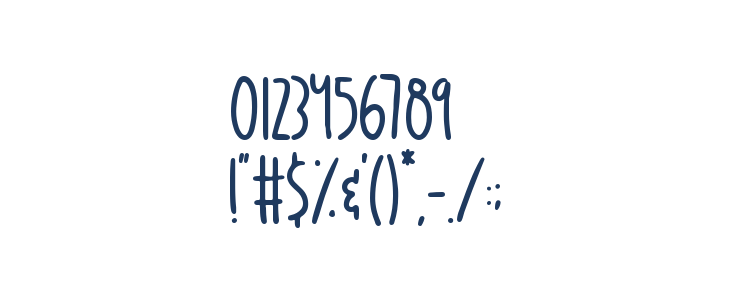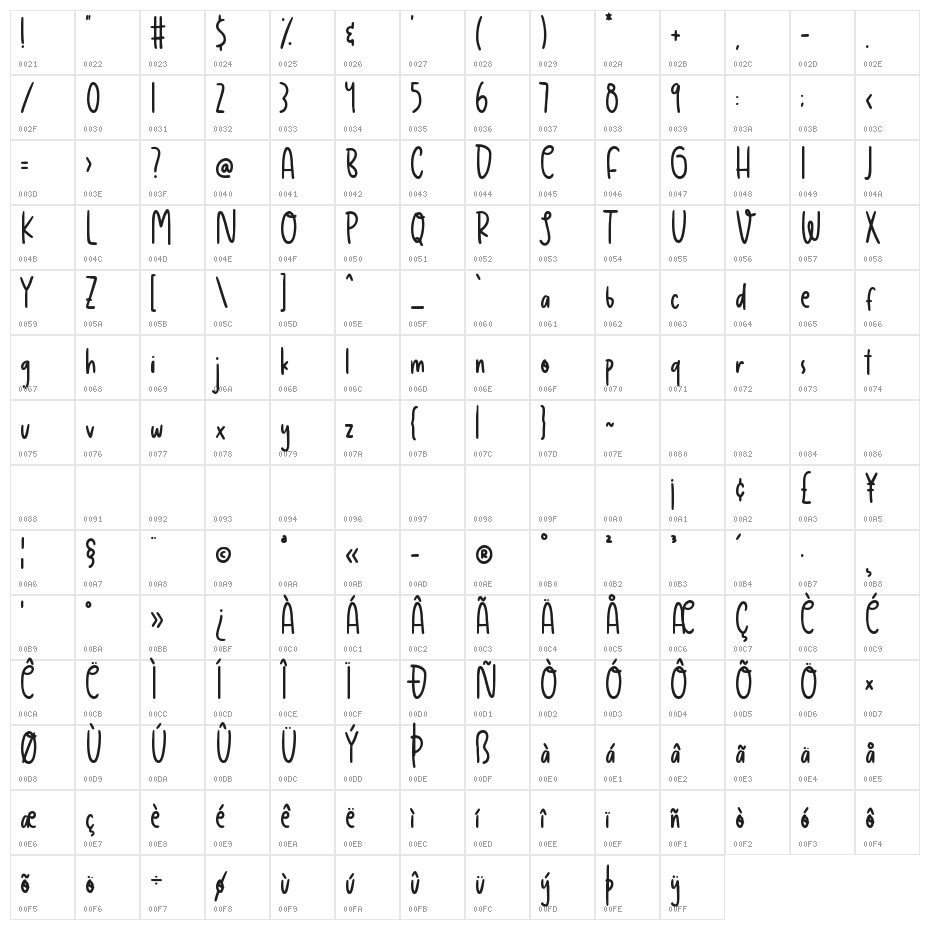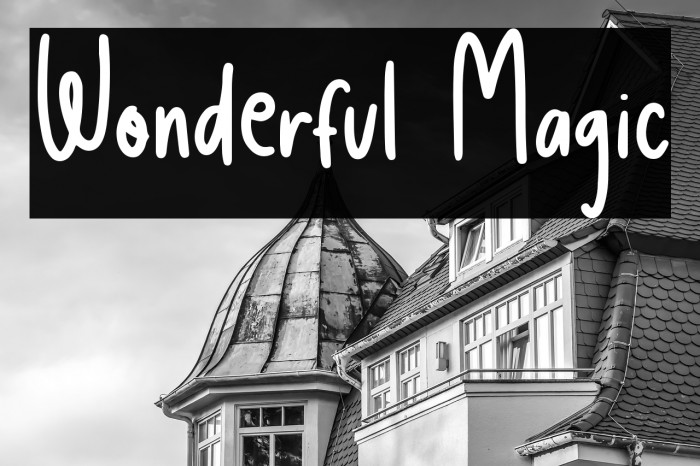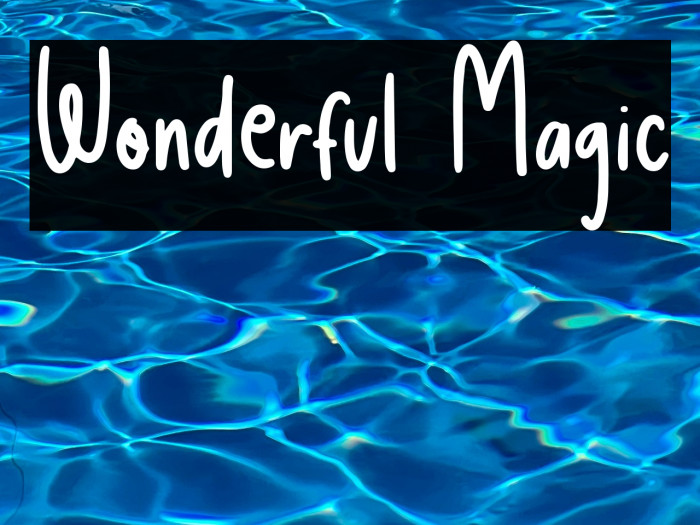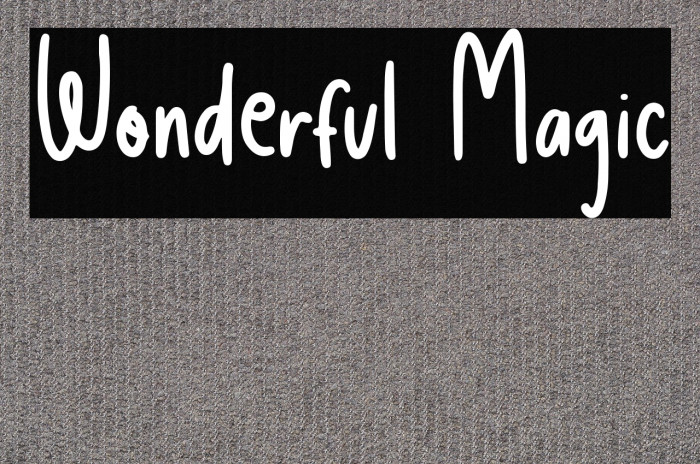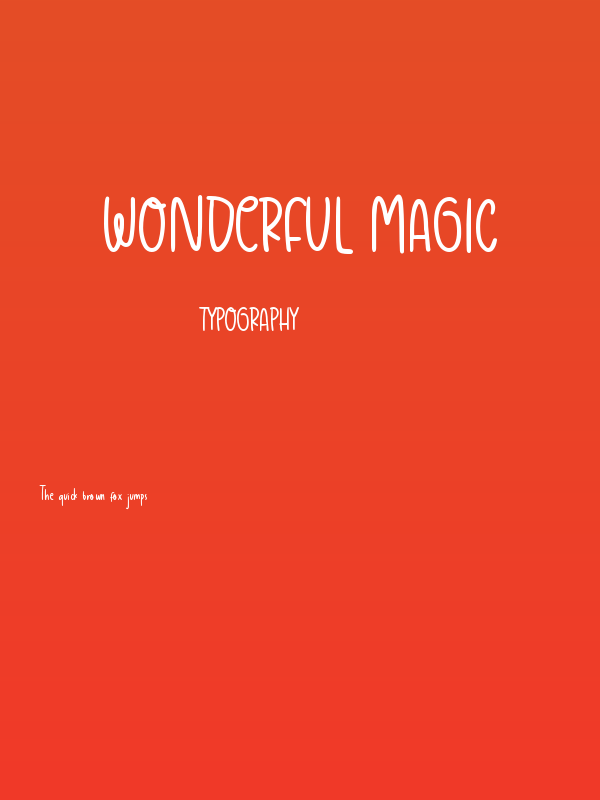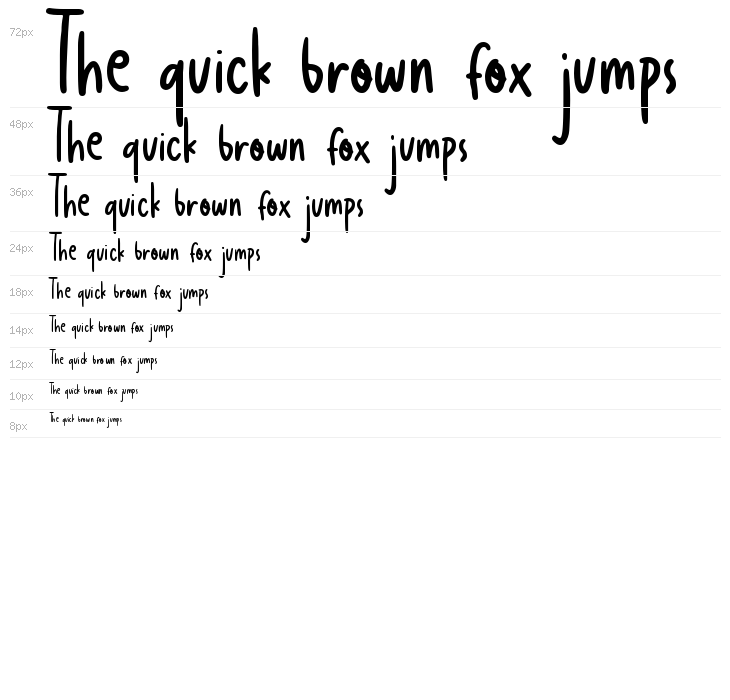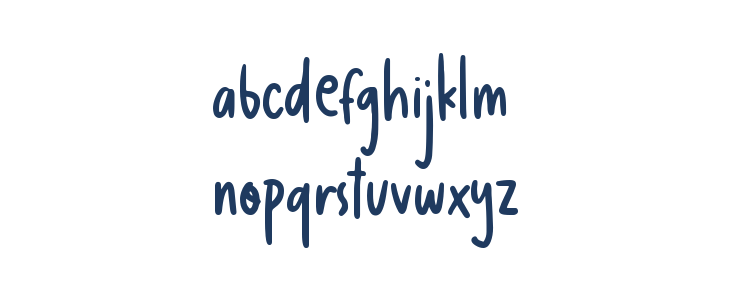
Wonderful Magic Font
Wonderful Magic Description
This font features a playful and whimsical handwritten style, characterized by its tall, narrow letters with rounded edges. The uppercase and lowercase letters maintain a consistent flow, enhancing its casual and friendly appearance. The numerals and special characters are crafted with the same playful touch, making them blend seamlessly with the alphabet. Its unique charm lies in the slight irregularities and variations in stroke thickness, which add to its hand-drawn appeal. This font is perfect for projects that require a personal, approachable, and creative touch.